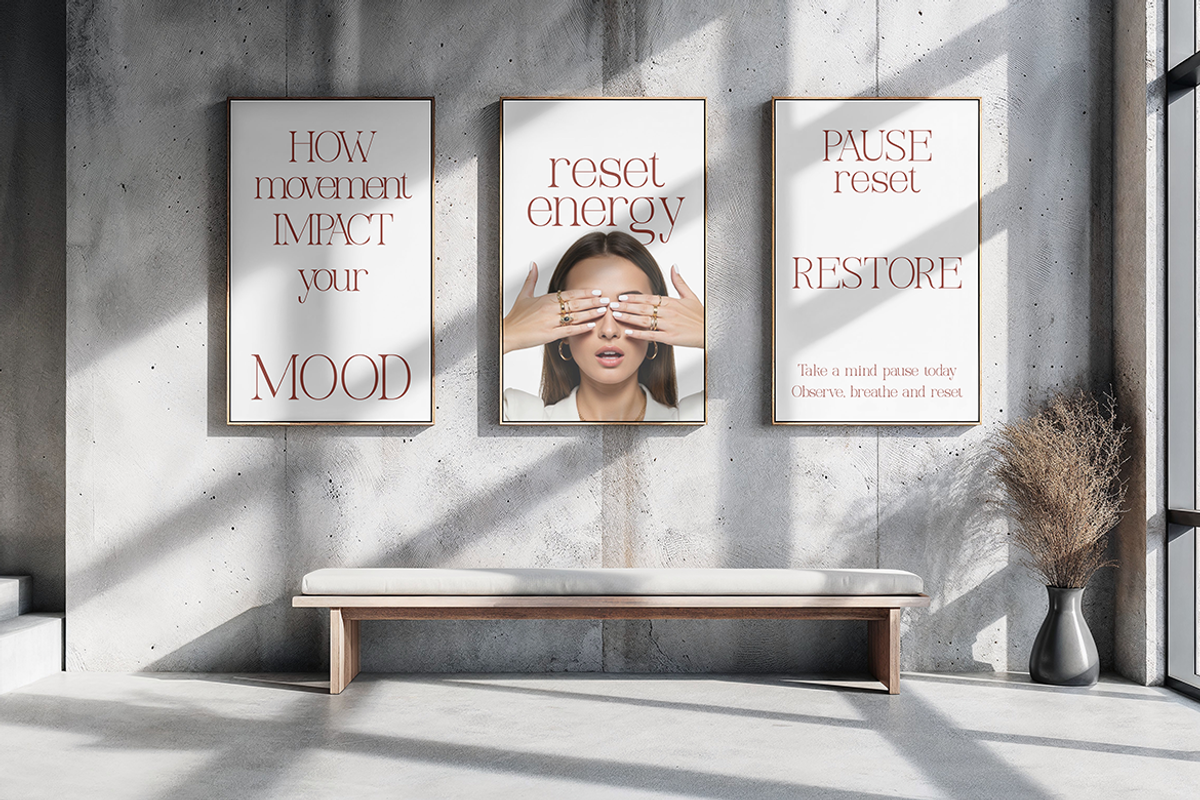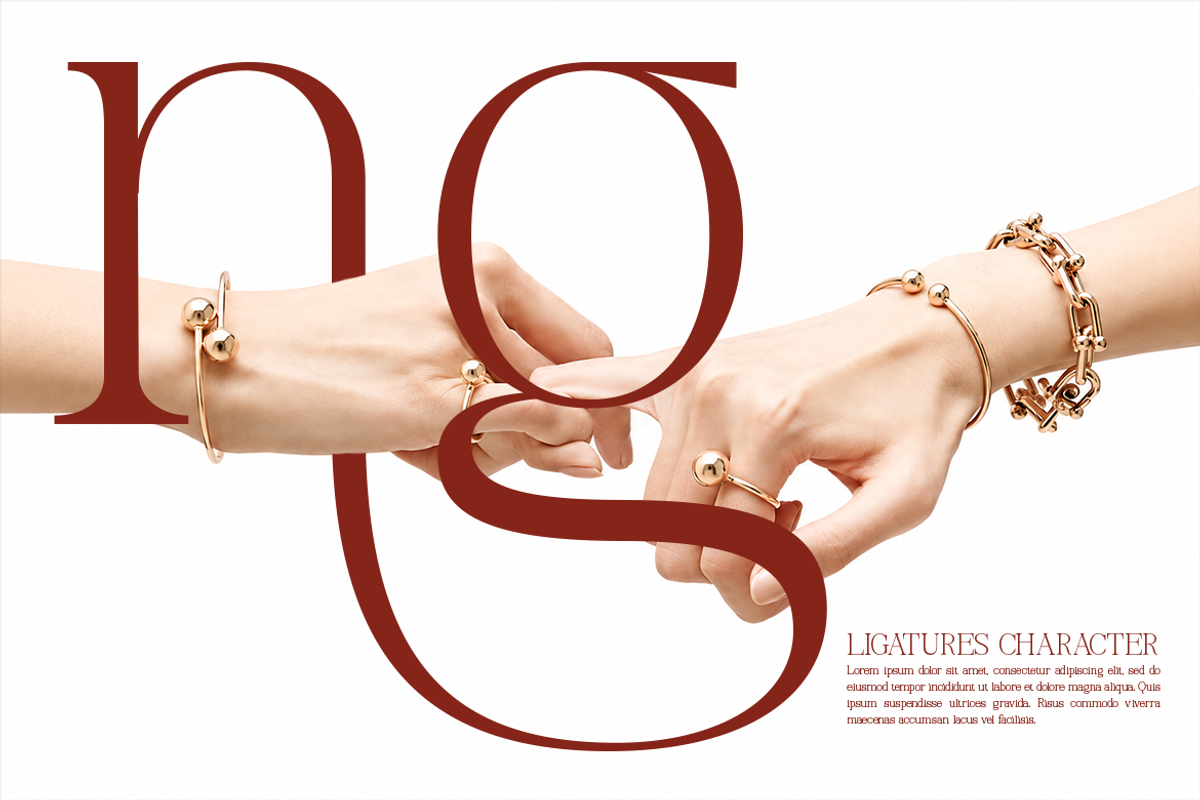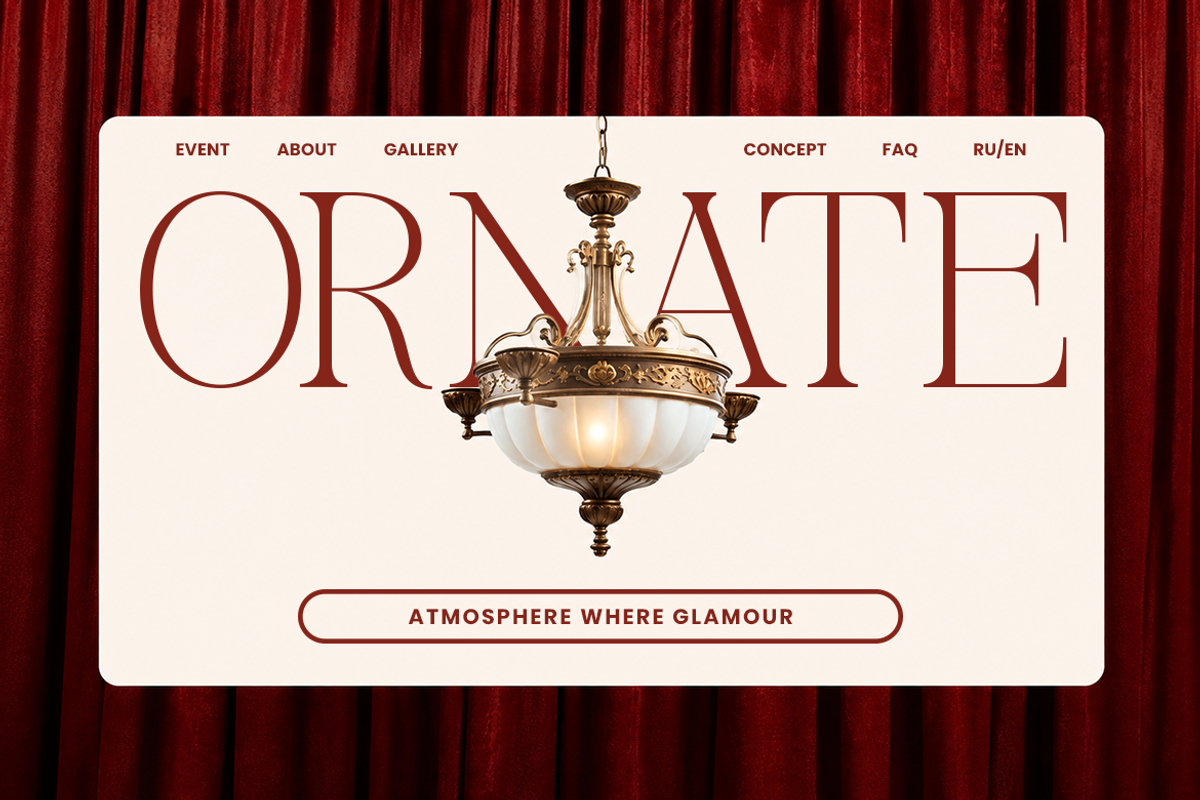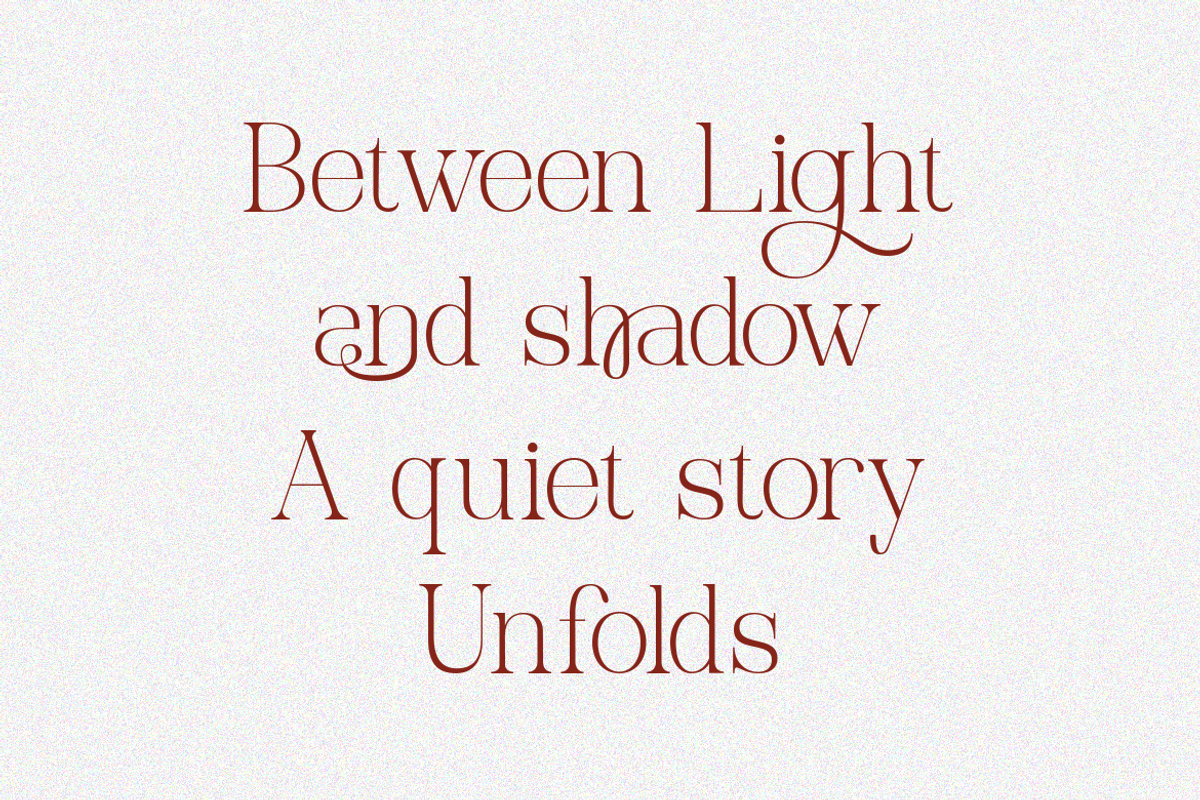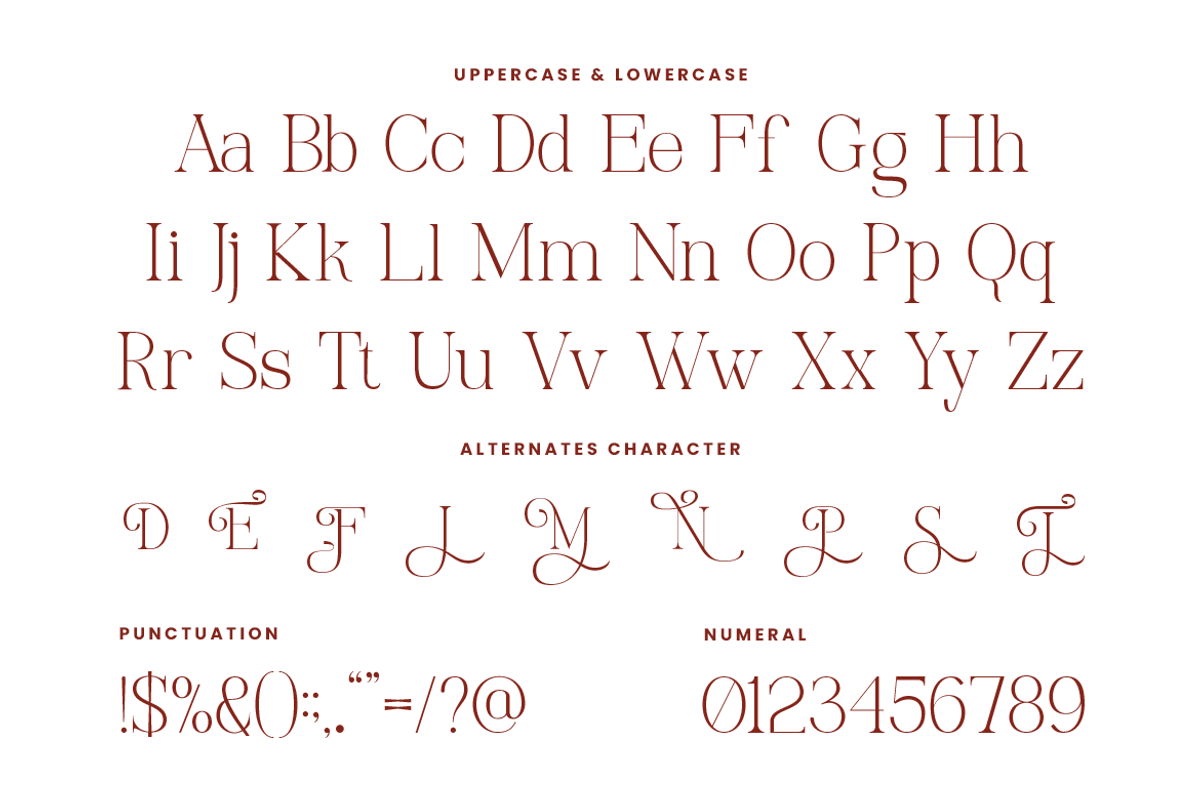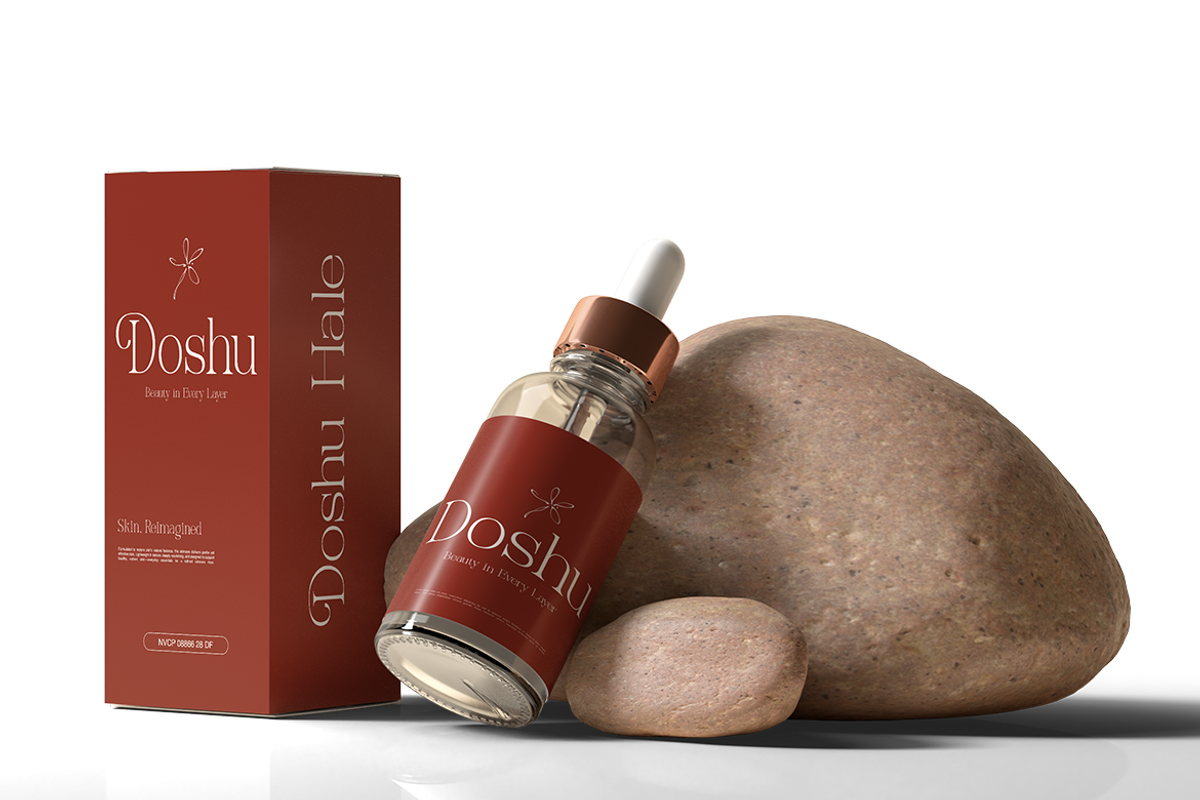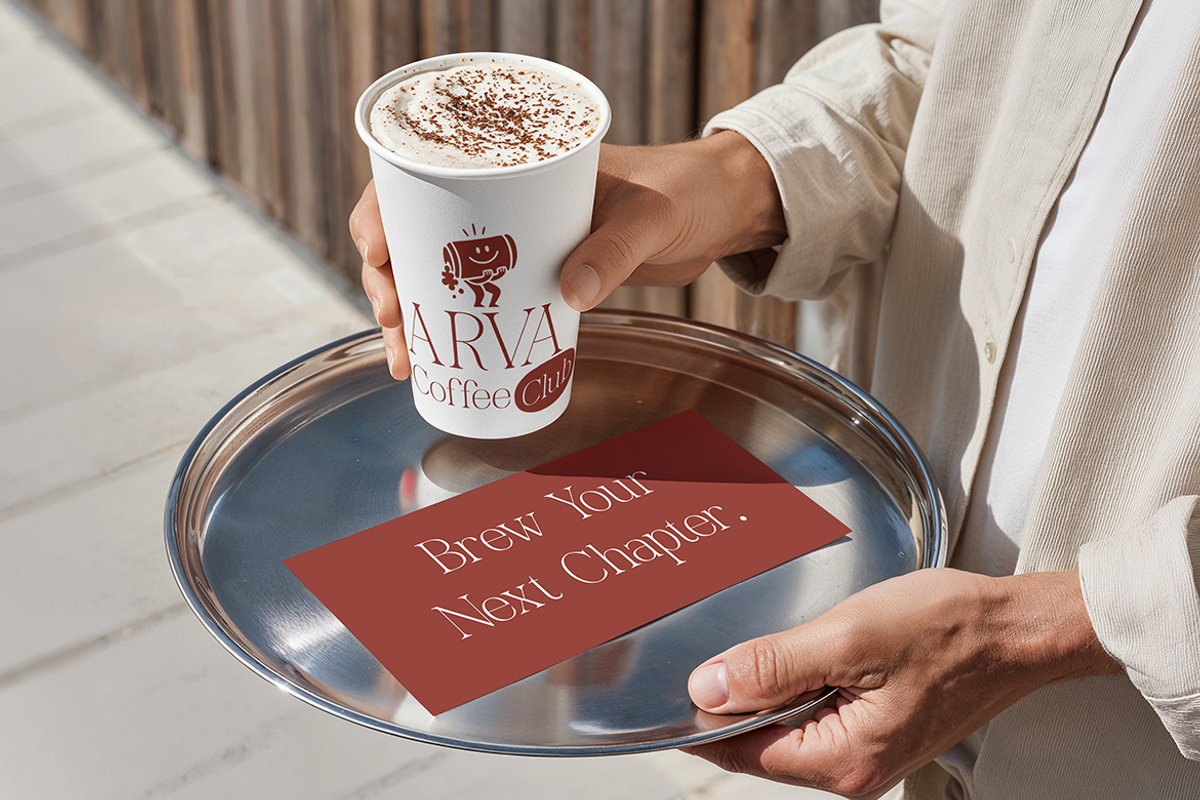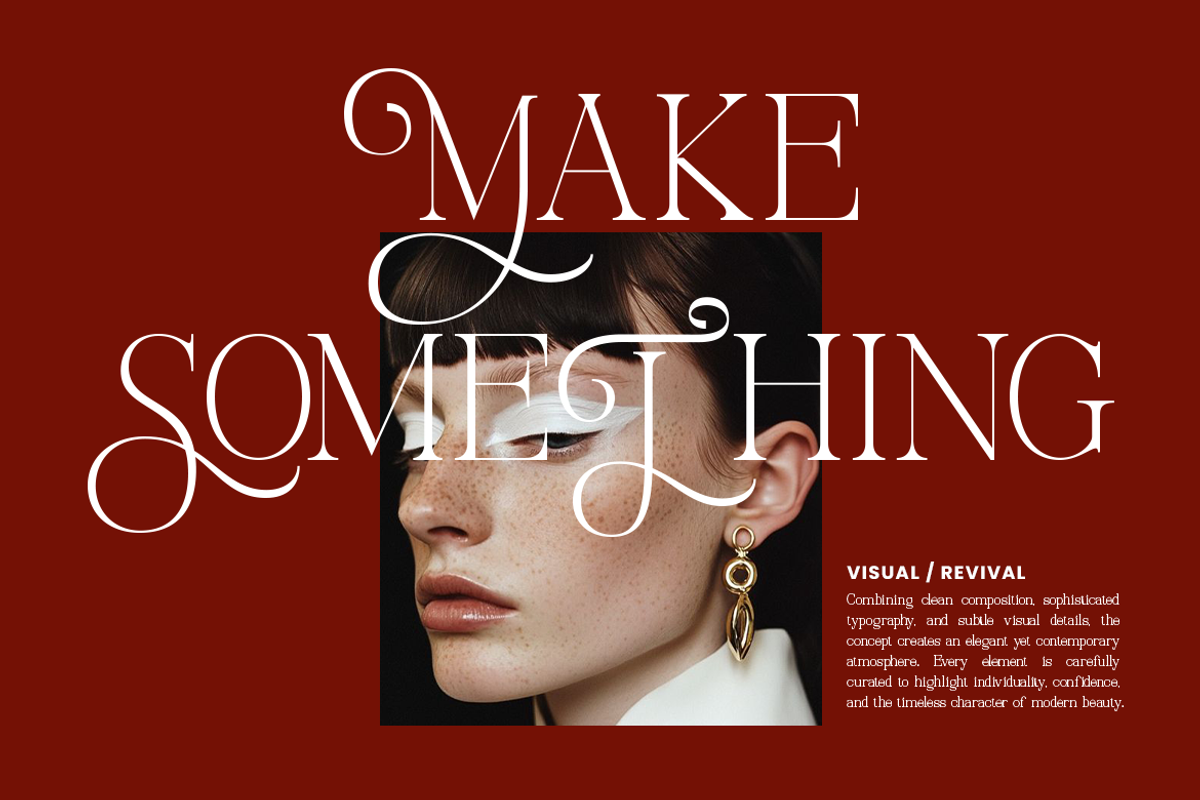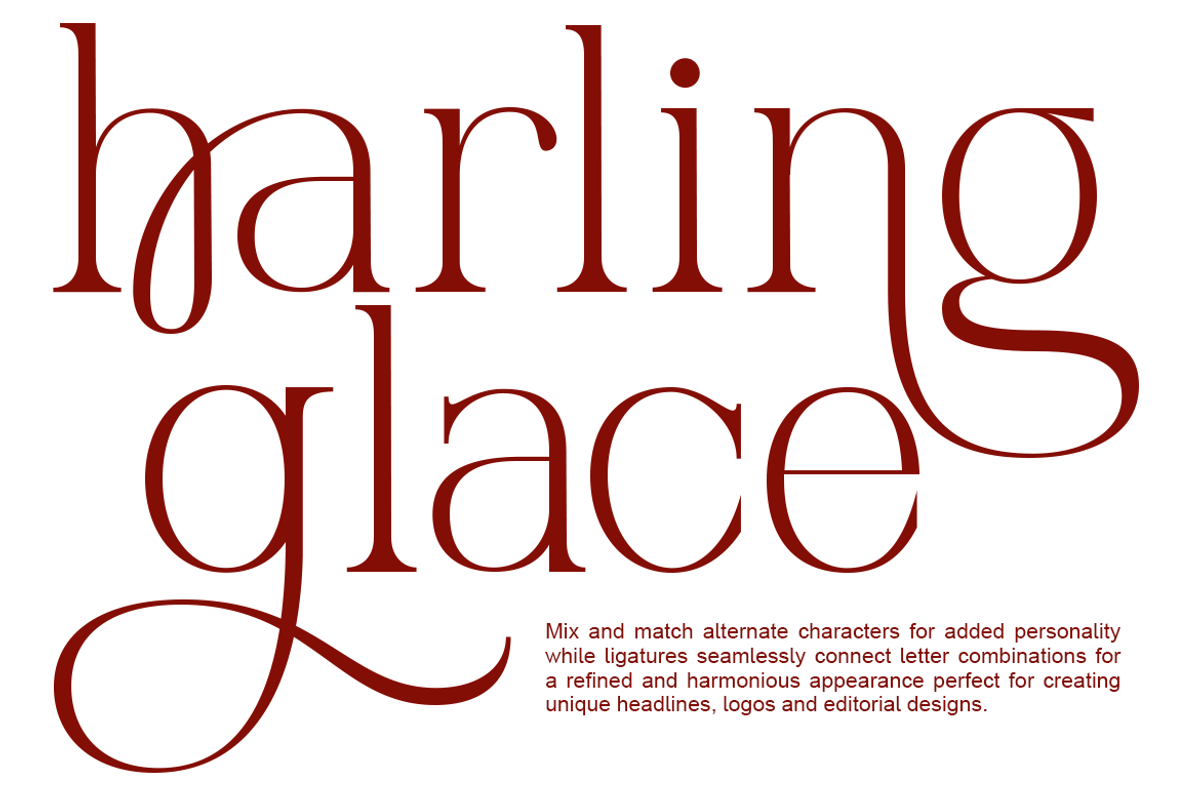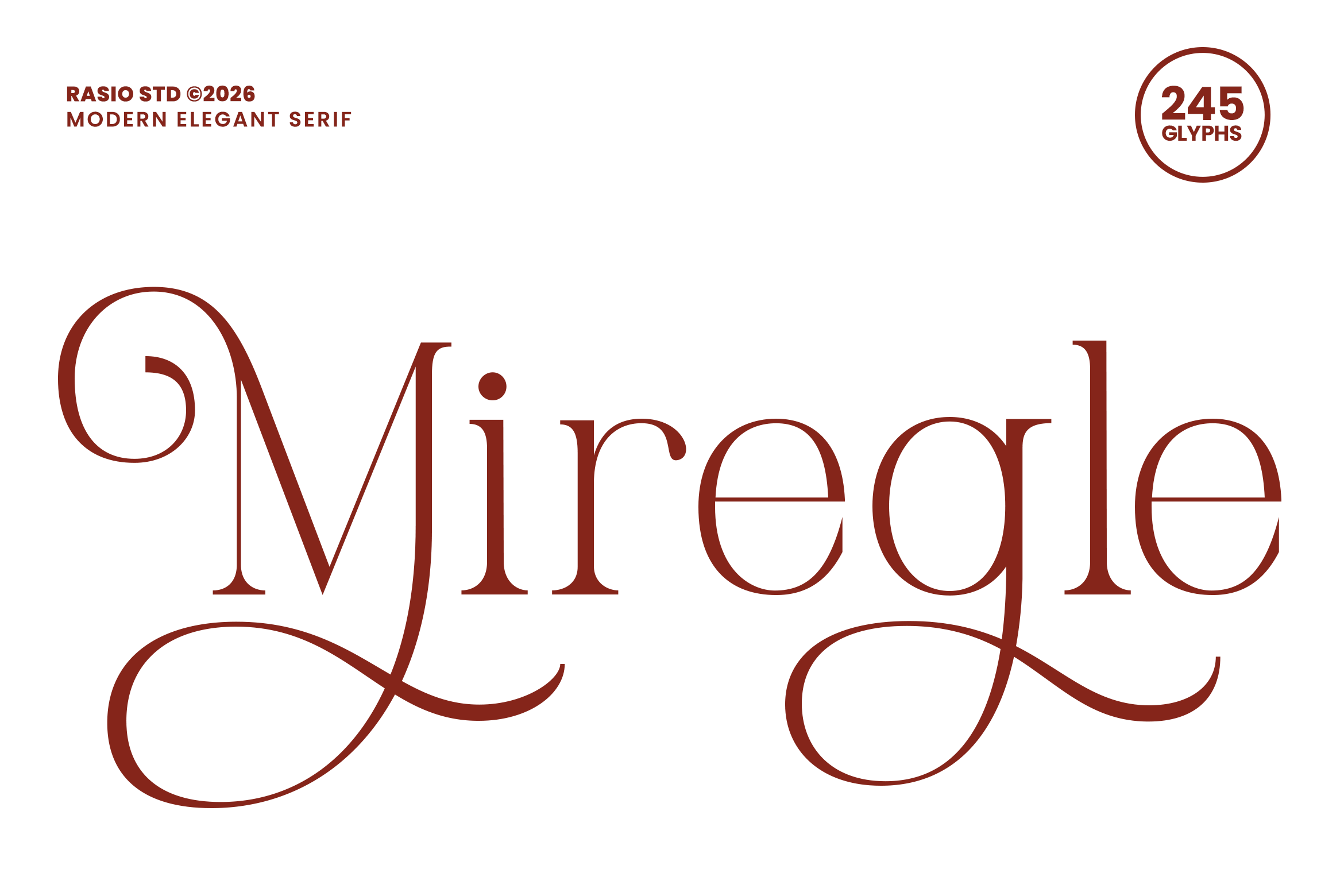
Miregle Modern Elegant Serif Font
Miregle Modern Elegant Serif Font is a refined display serif typeface that combines high-contrast strokes, elegant proportions, and expressive decorative details. Its letterforms feature thin hairlines contrasted with stronger vertical strokes, creating a polished editorial appearance while maintaining a distinctive personality. Several characters include extended curves and ornamental swash details, allowing designers to create more expressive typography without needing to build decorative elements separately.
The font includes 245 glyphs, with uppercase and lowercase letters, numerals, punctuation, and a selection of alternate characters for added stylistic variety. The alternates can be used selectively to replace standard letters and create more distinctive wordmarks, initials, titles, or names. Miregle works especially well at larger sizes, where its contrast, curves, and fine details remain clearly visible. Designers can use it for fashion logos, beauty branding, editorial headlines, magazine covers, wedding invitations, packaging, product labels, boutique identities, posters, and social media graphics.
High-contrast serif structure with bold stems and delicate hairlines
Elongated proportions for a refined editorial appearance
Sweeping swashes and extended curves for distinctive typography
Graceful letterforms with decorative terminals and refined details
Expressive uppercase and lowercase characters for varied compositions
Fashion branding and luxury logos requiring refined, expressive typography
Editorial magazines and book covers with a sophisticated, high-contrast look
Wedding invitations and stationery featuring decorative and graceful lettering
Beauty and lifestyle packaging for perfumes, cosmetics, and boutique products
Social media graphics and promotional designs that need an elevated typographic
Supports numerals, punctuation, and extensive symbol set
Add graceful character to your designs with Miregle crafted with elegant curves